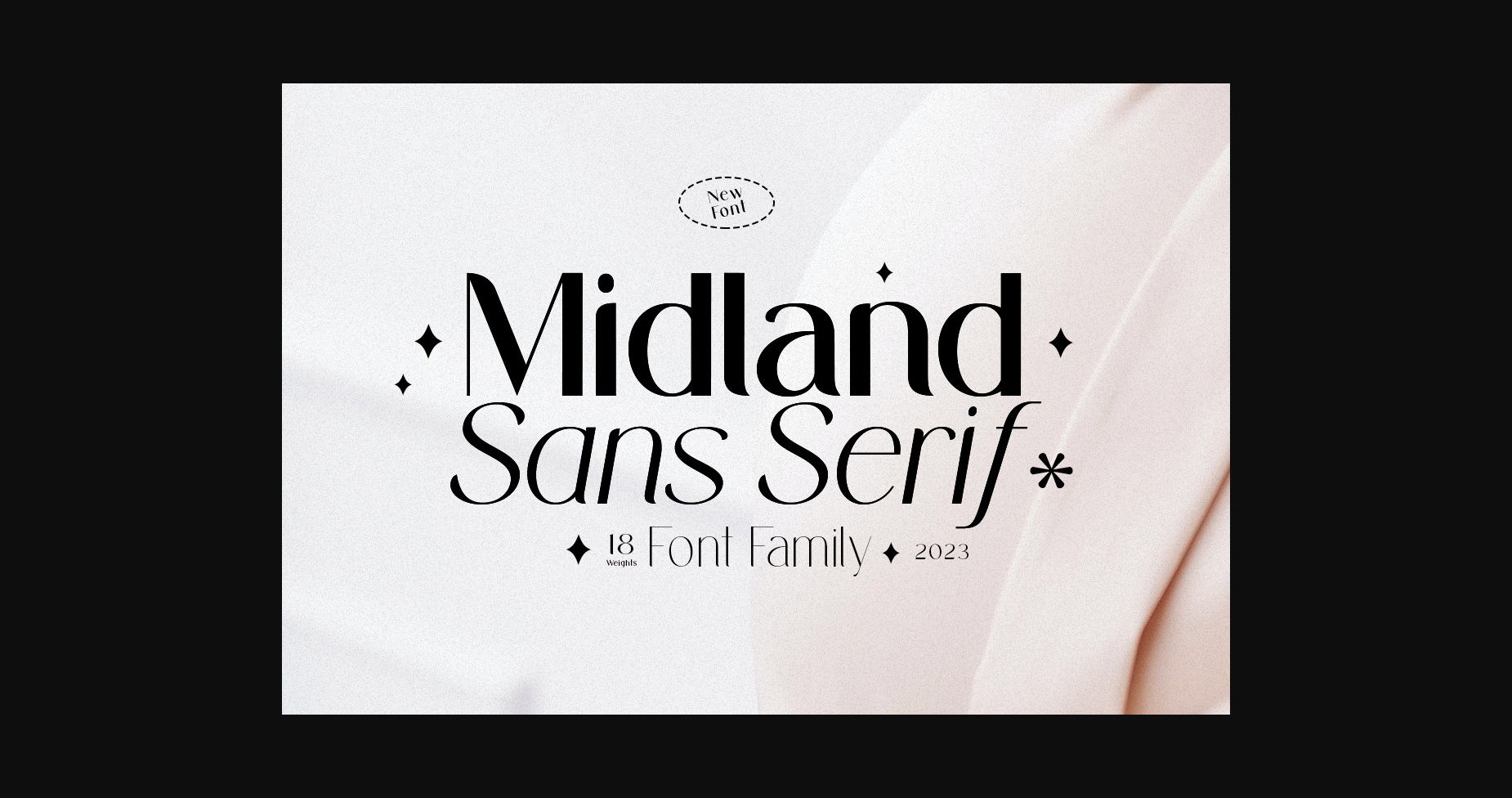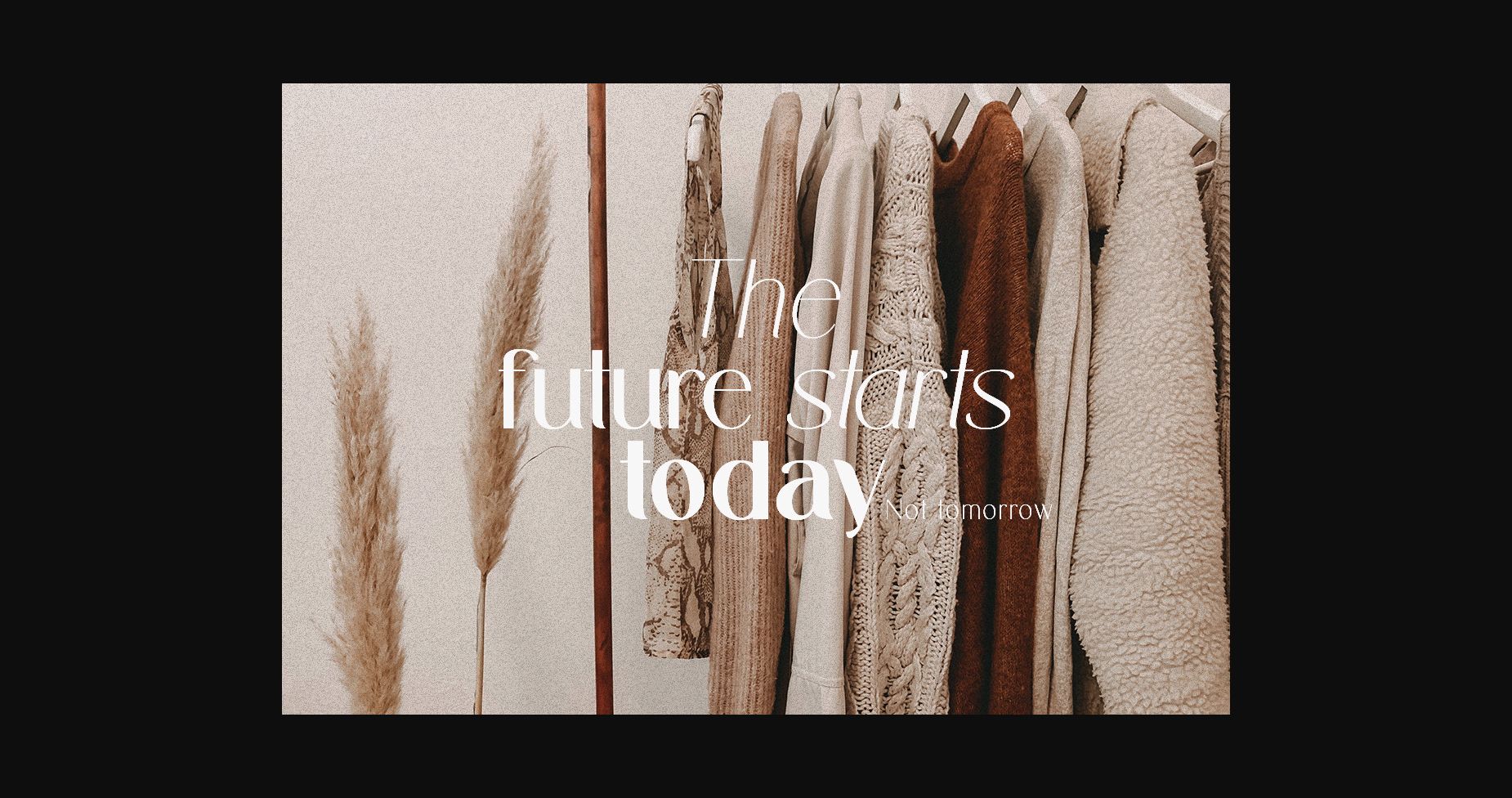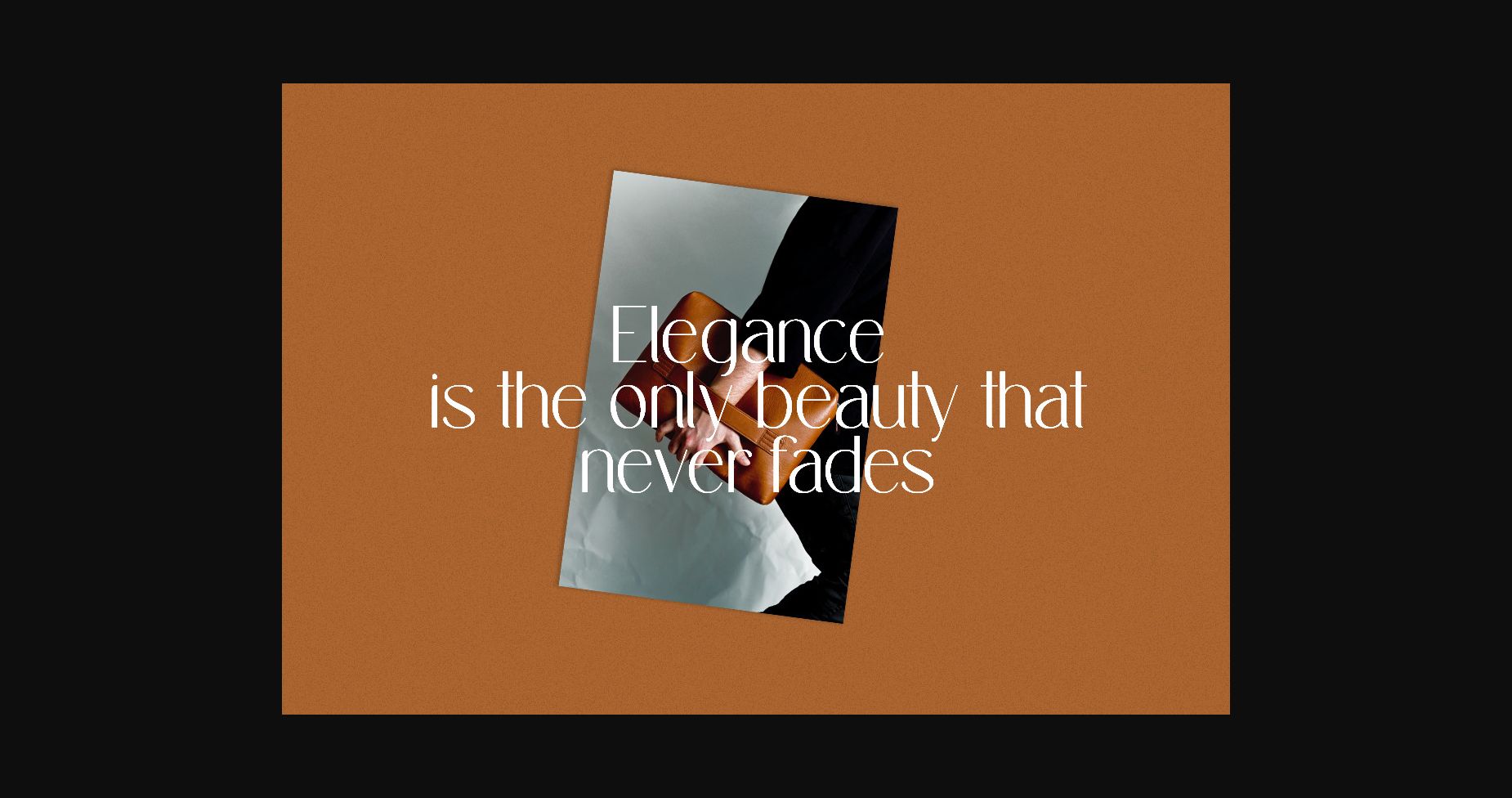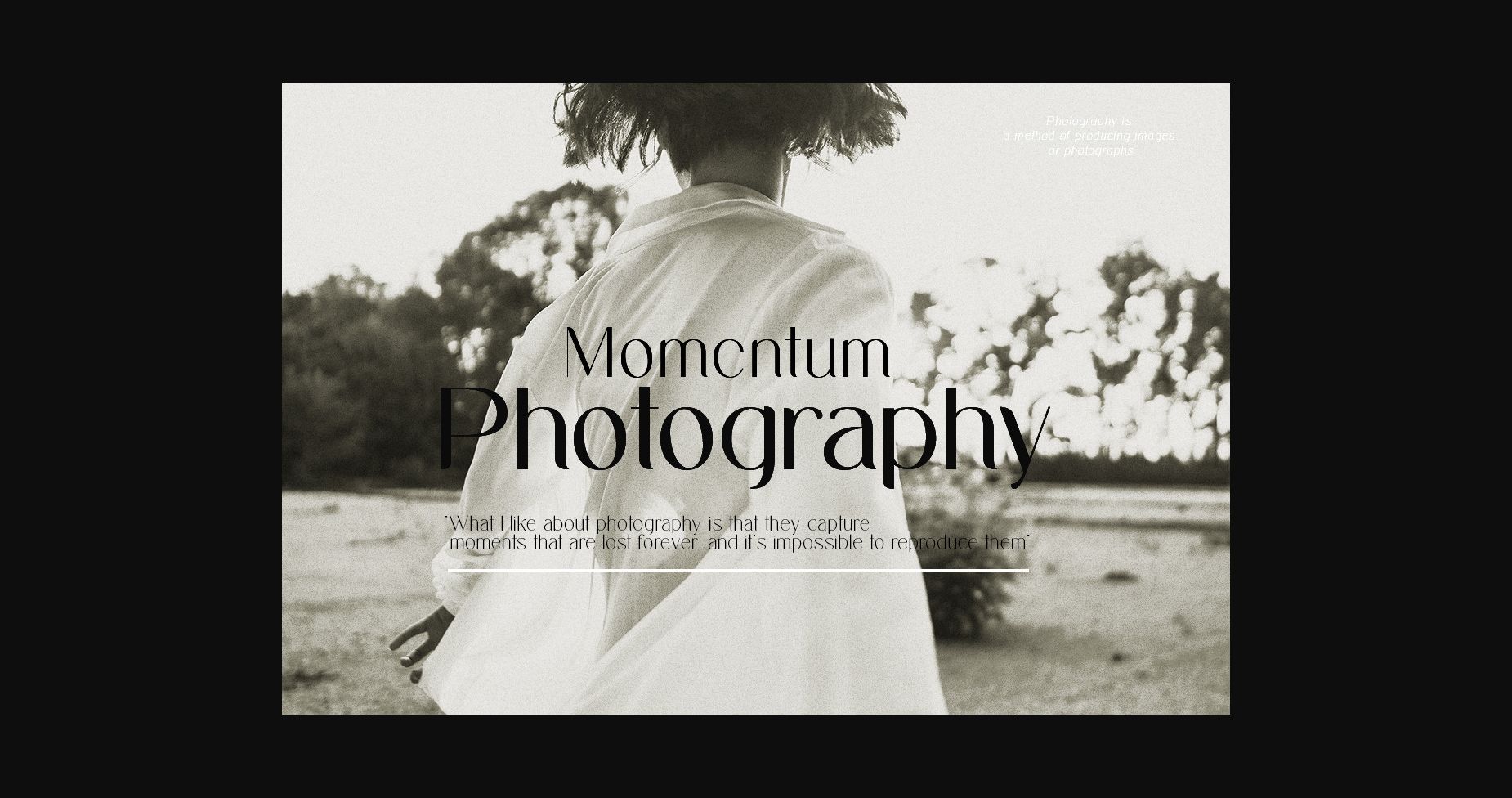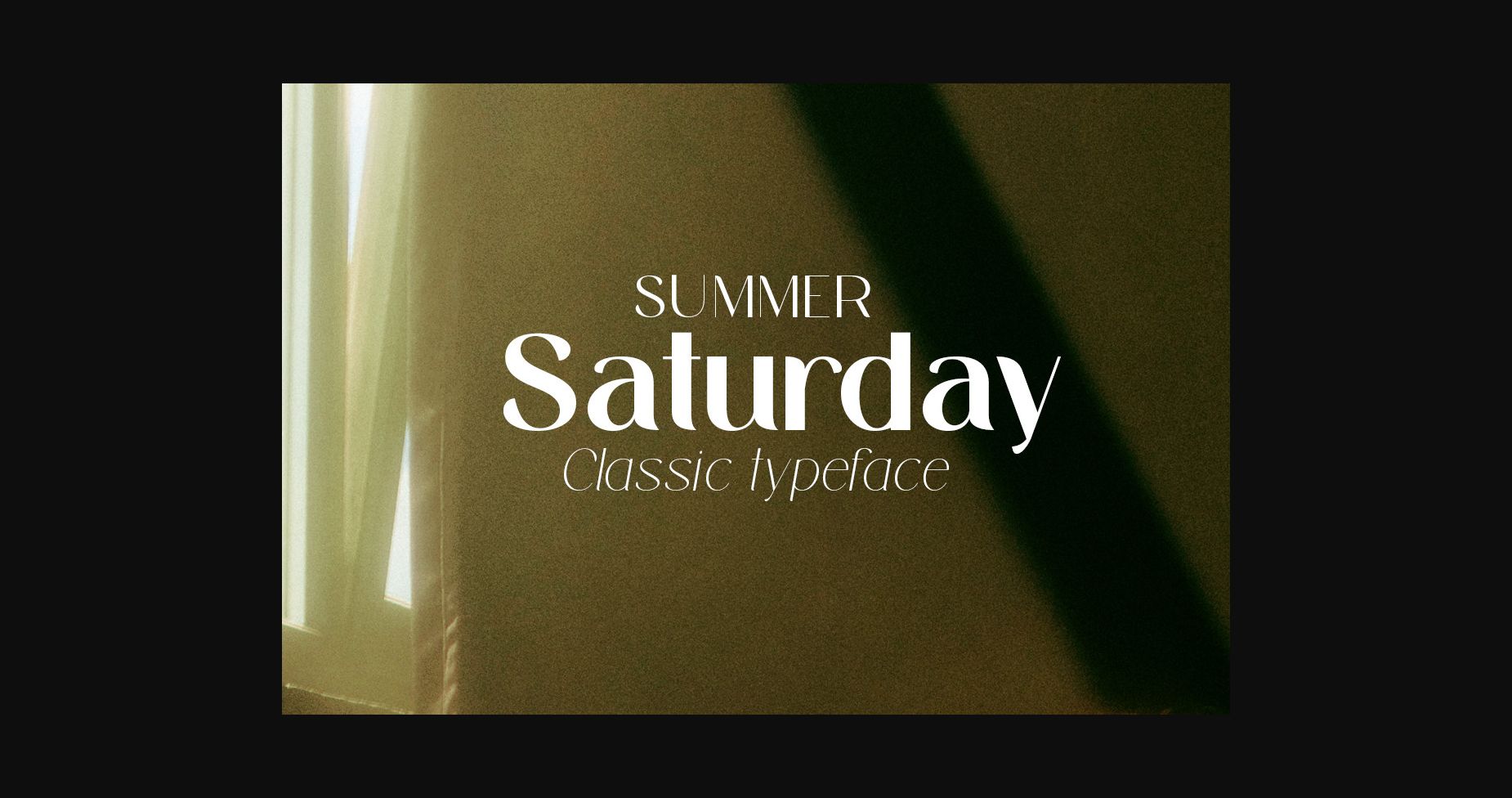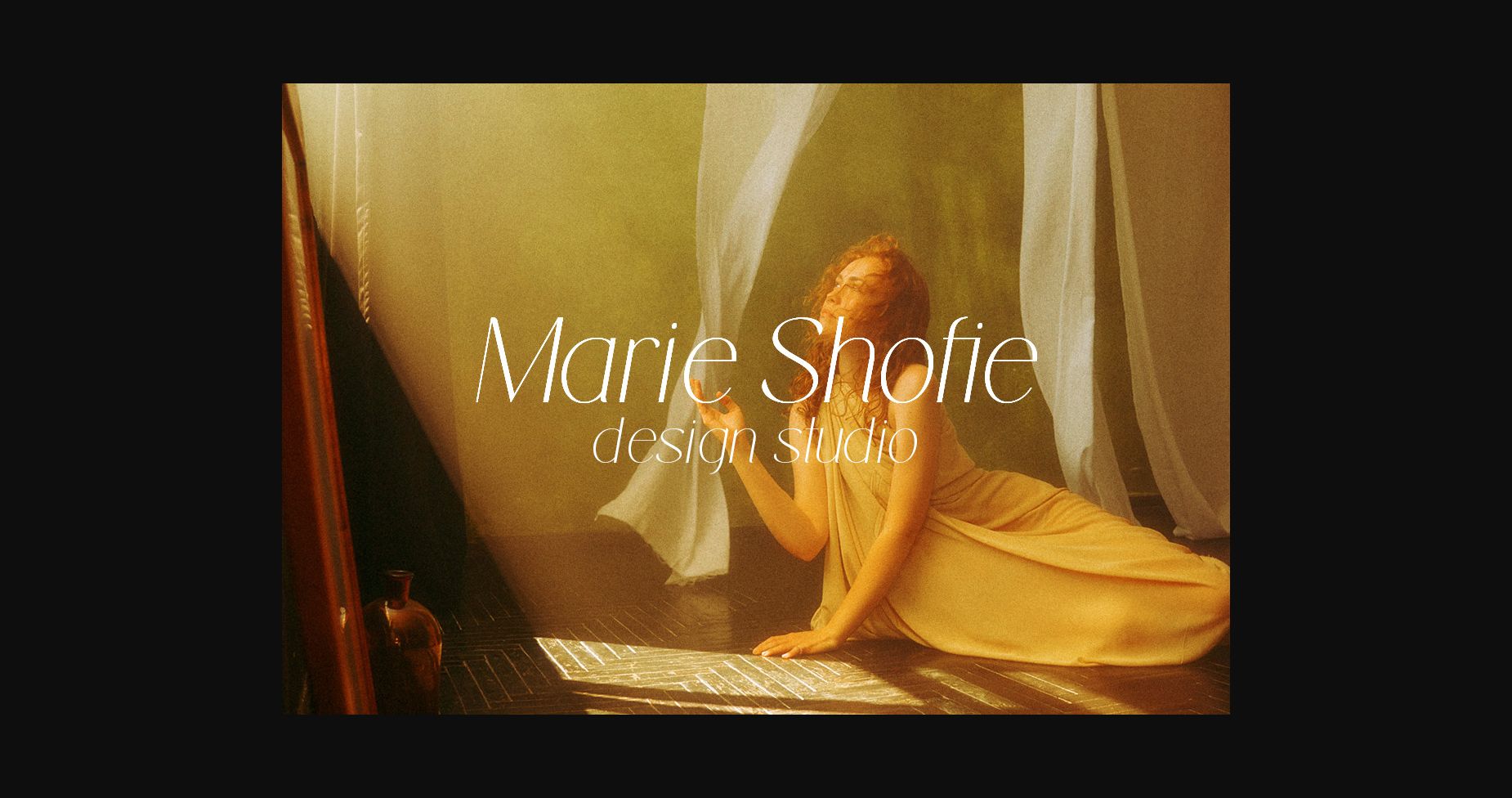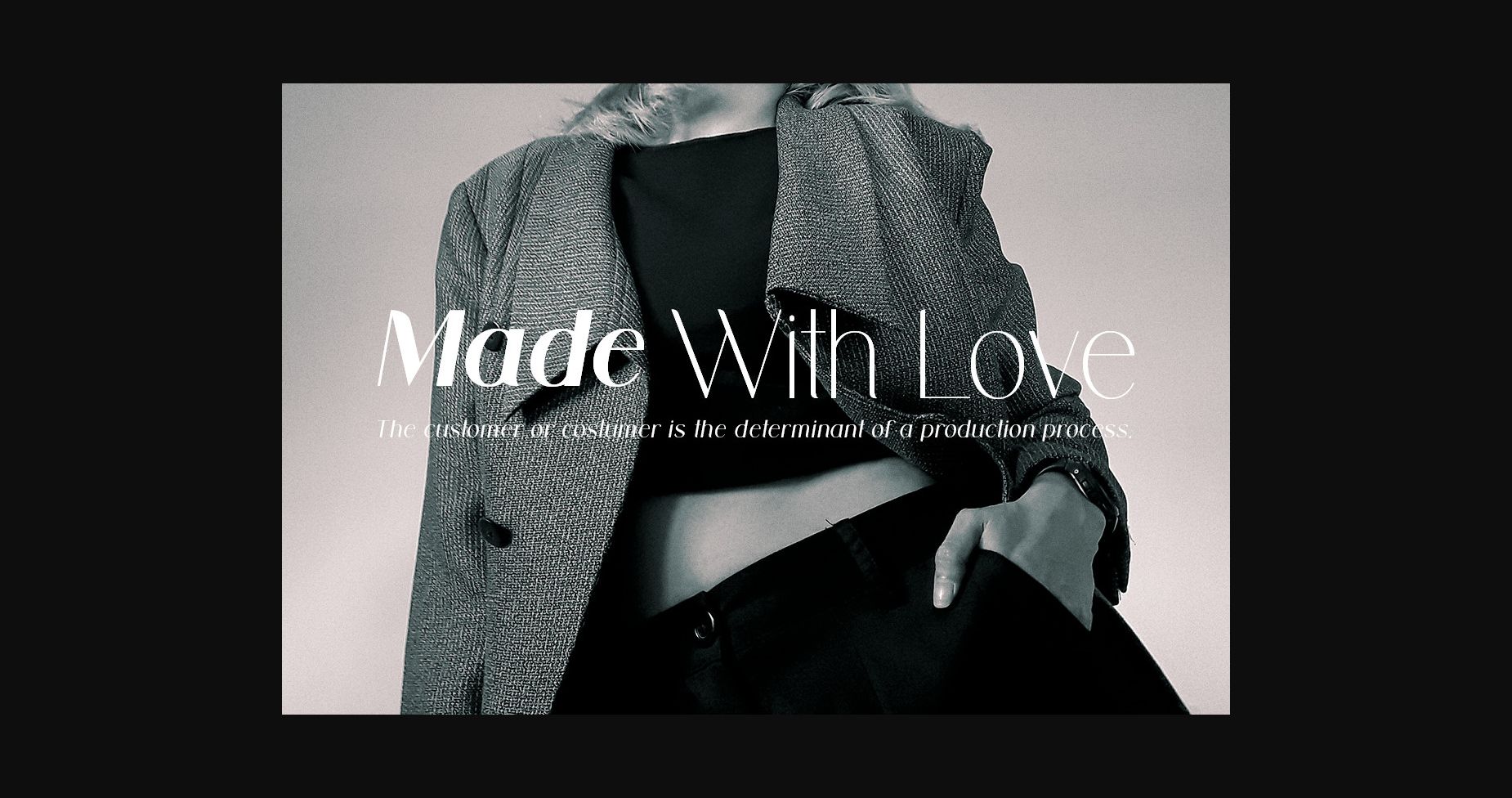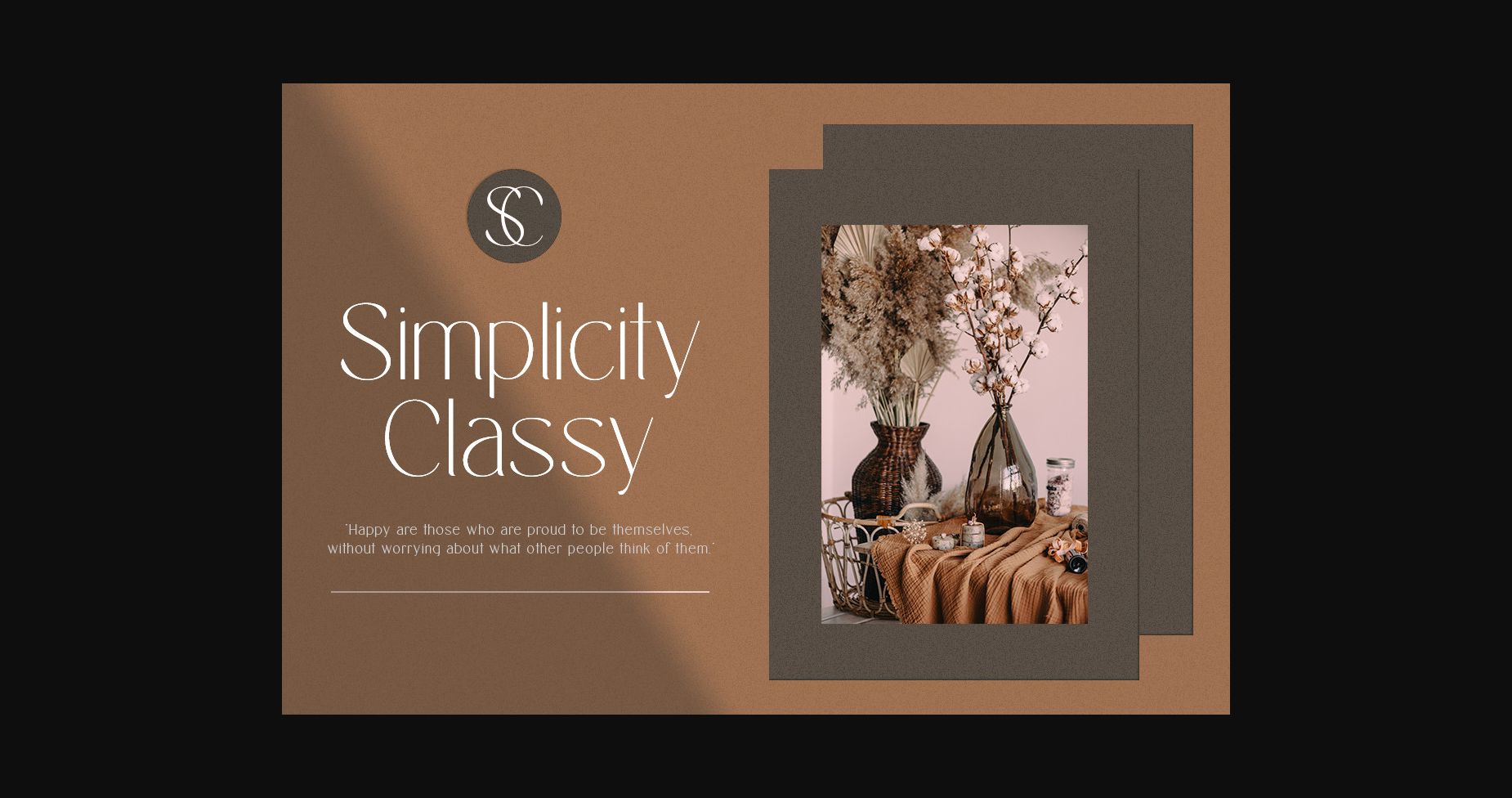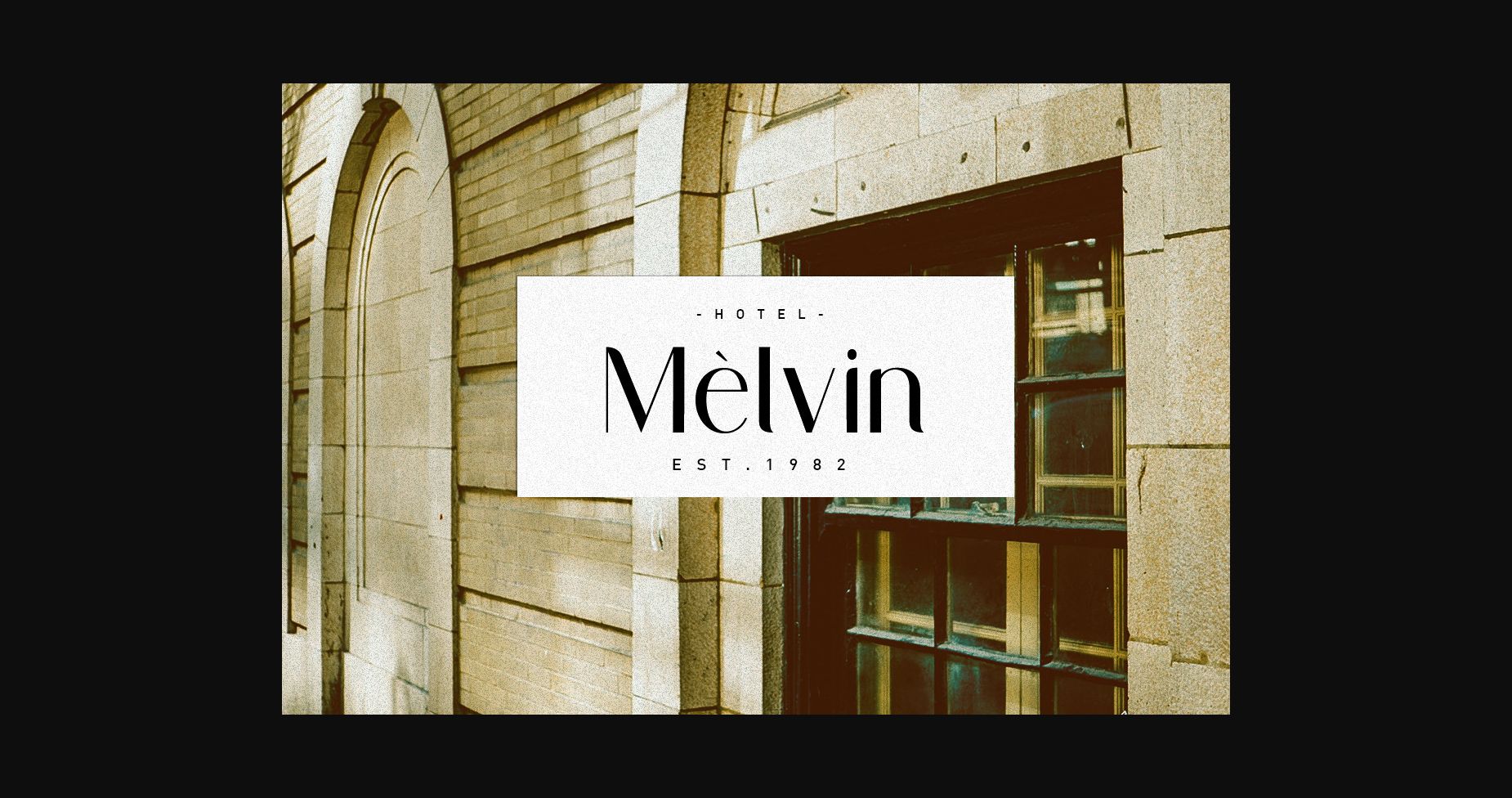
Midland Font
About Midland Font
Midland font through the exquisite writing calligraphy will bring to your projects a sense of authenticity. Go head over heels for its distinctive style and use it to create wonderful designs!